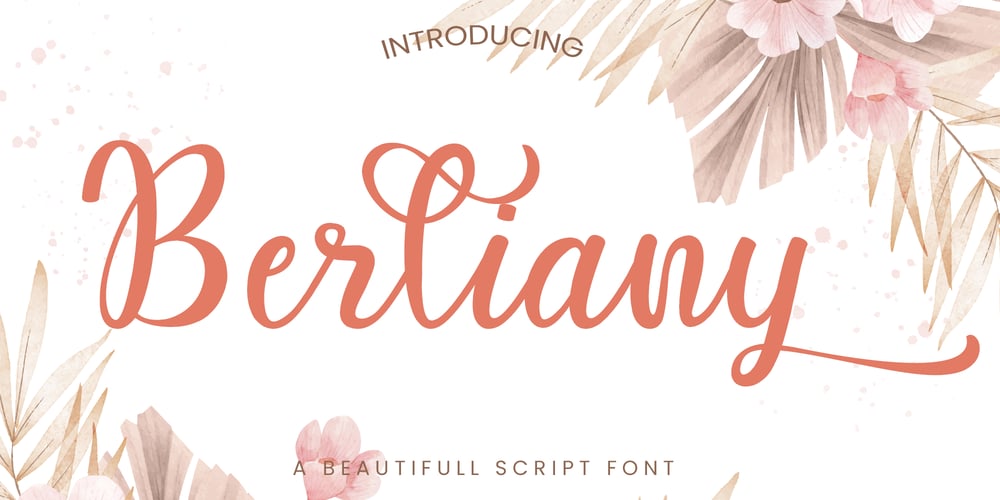
Berliany
Berliany font
Berliany Font Family was designed by Amrullah Medan, Amrullah, Dedi Purwanto and published by Ably Creative. Berliany contains 1 styles and family package options. Berliany As the name suggests, berliany are handwritten fonts that look like they were written by hand perfect mix modern calligraphy, Add a touch of luxury and style to your projects too, with Berliany font Collection. It’s highly recommended to turn your Opentype features on while using the script font, to make use of it’s best features – the multitude of OpenType ligatures. As you type, your text looks like natural handwriting, and less like a monotonous font. Berliany font was created to help you designing makes gorgeous logos, posters, wedding invitations, blog posts, social media etc